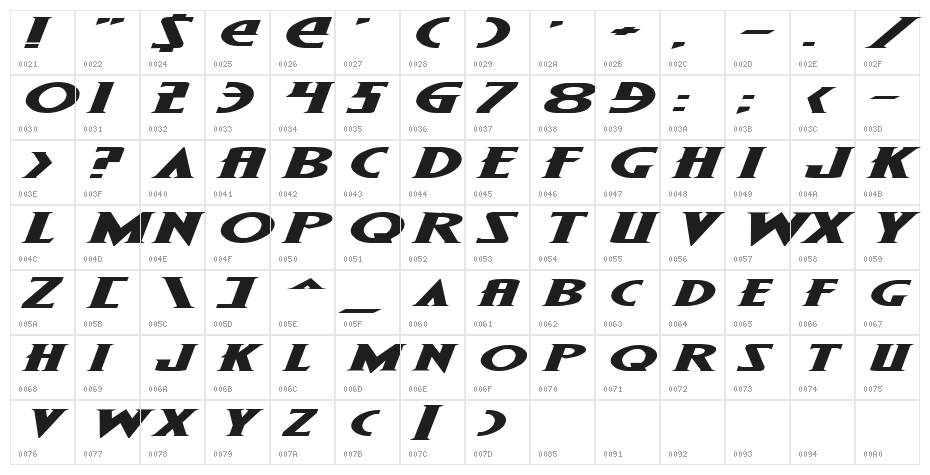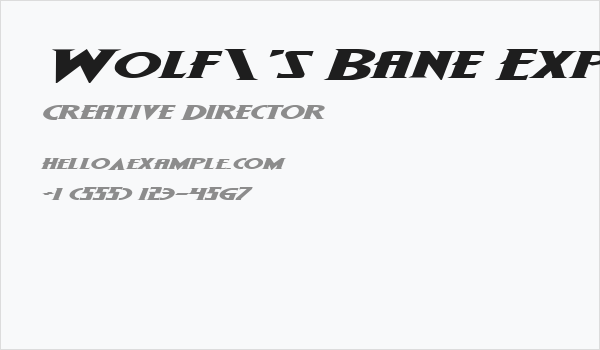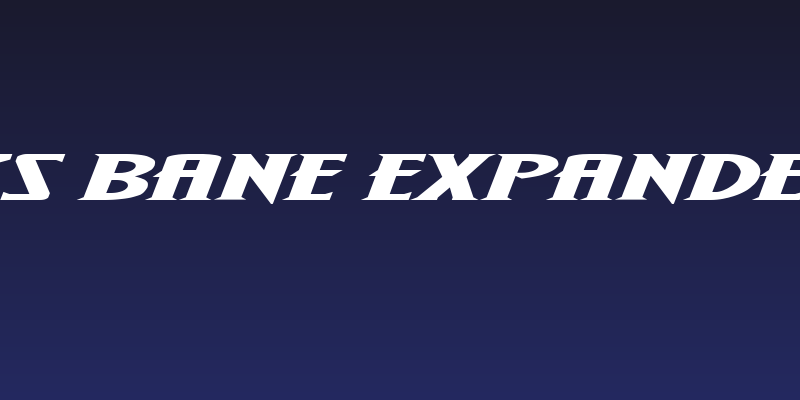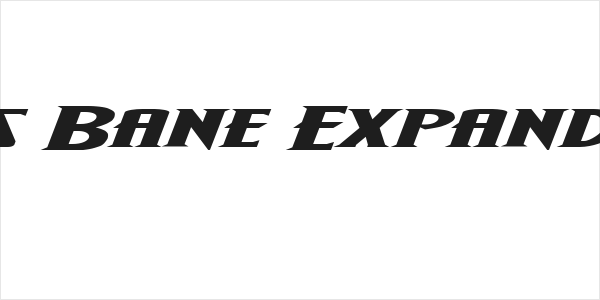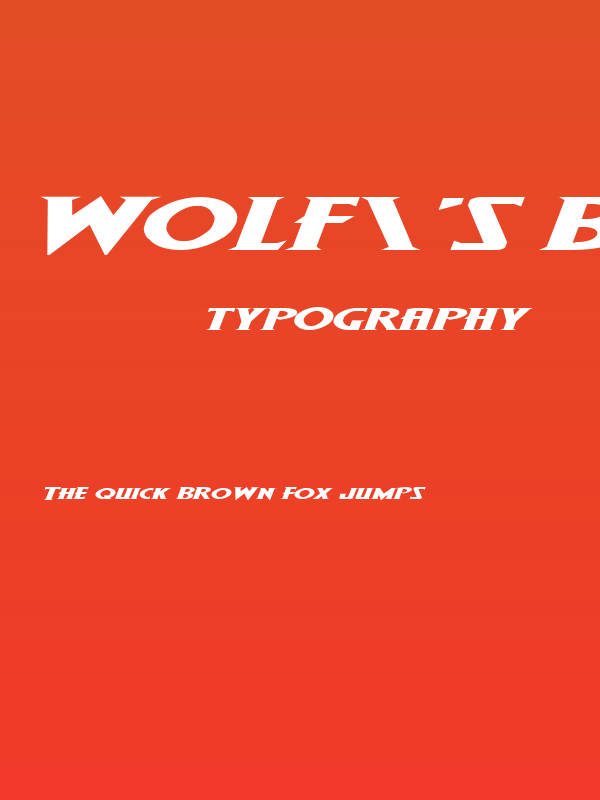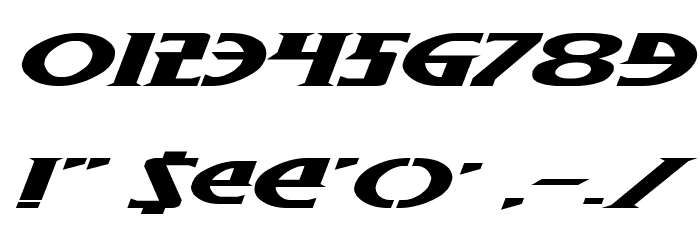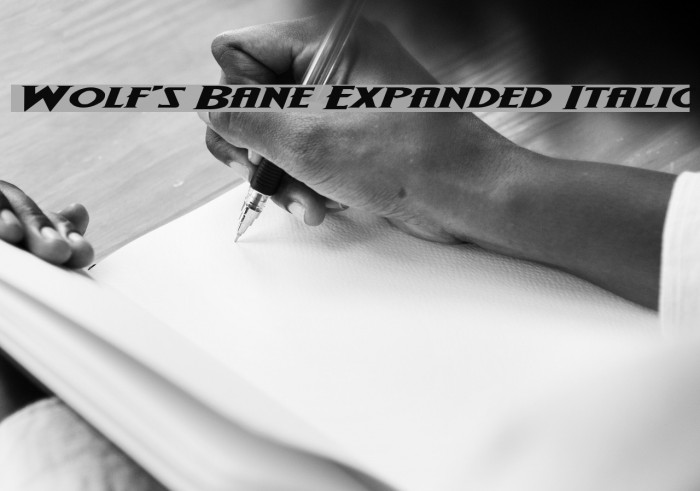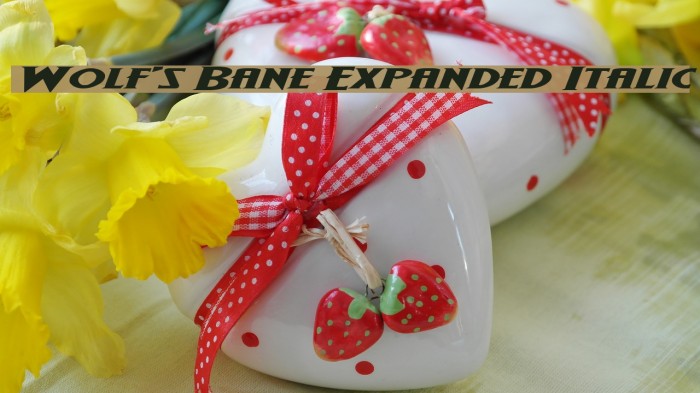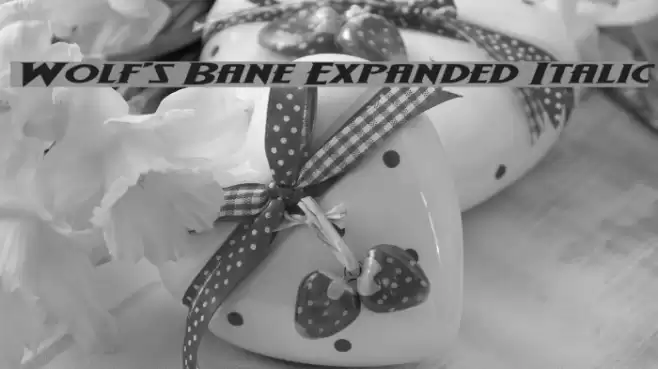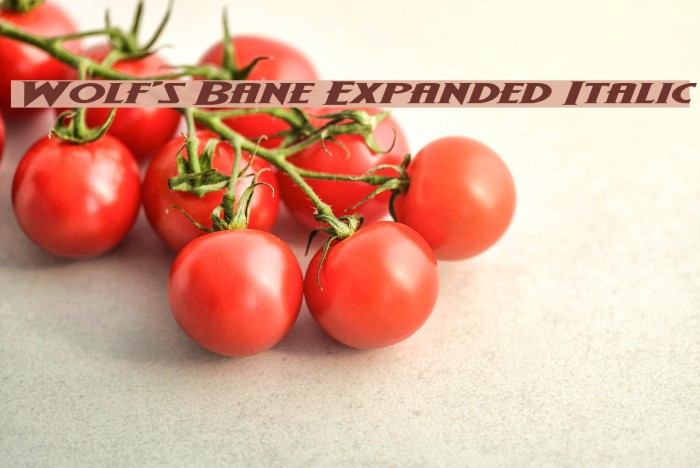
Wolf's Bane Expanded Italic Font
Wolf's Bane Expanded Italic Description
This font features a bold and dynamic style with a distinct italic slant, giving it a sense of motion and energy. The characters are expanded, providing a wide and impactful presence. The strokes are thick and consistent, offering a strong visual weight that commands attention. The design is modern and slightly aggressive, making it suitable for projects that require a bold statement. The uppercase and lowercase letters maintain a uniform style, ensuring readability while adding a unique flair. The numerals and special characters are designed to match the overall aesthetic, providing a cohesive look across all elements.
| Proposed Projects | Ideal for sports branding, action movie posters, video game titles, and dynamic advertising campaigns. |